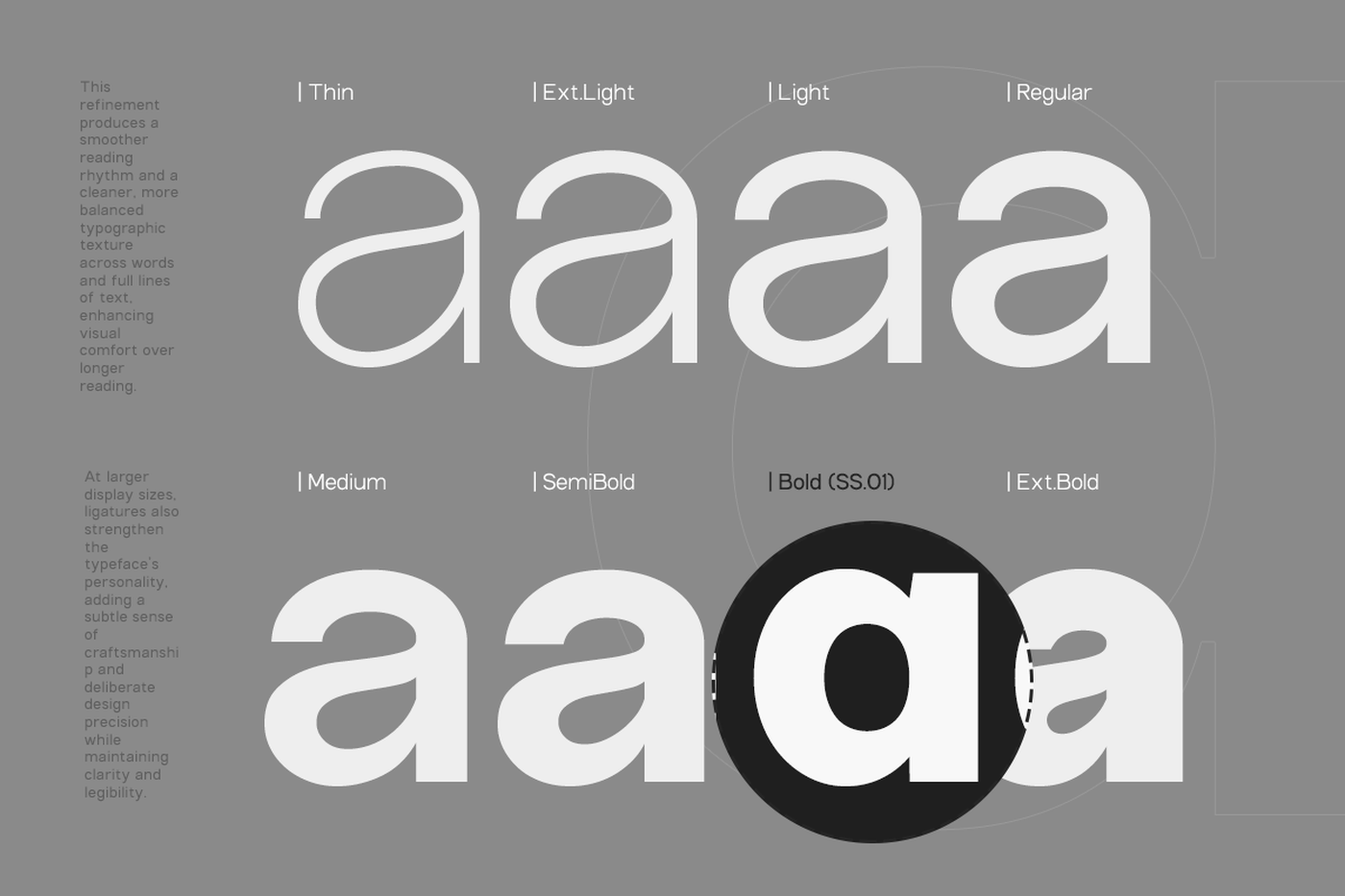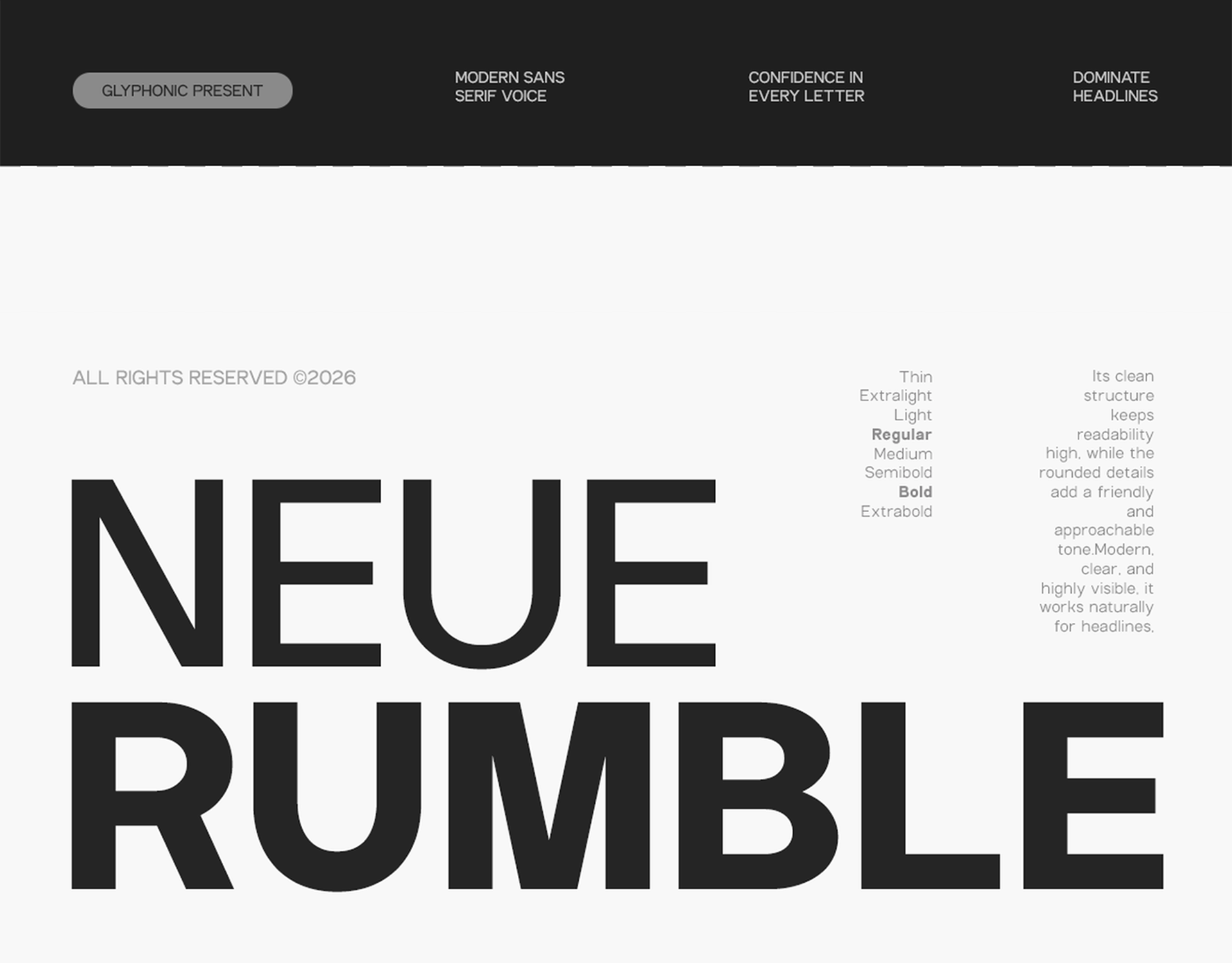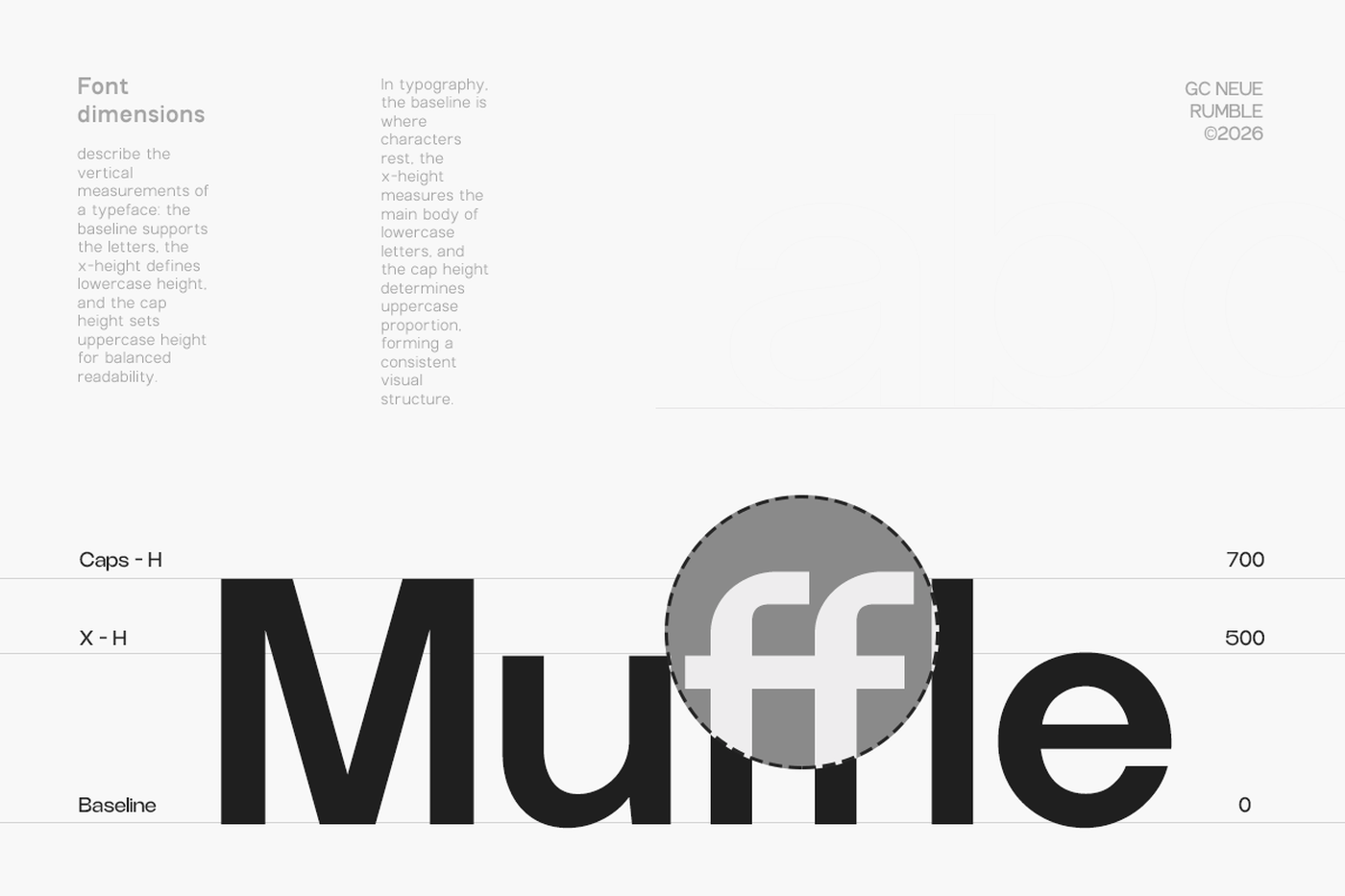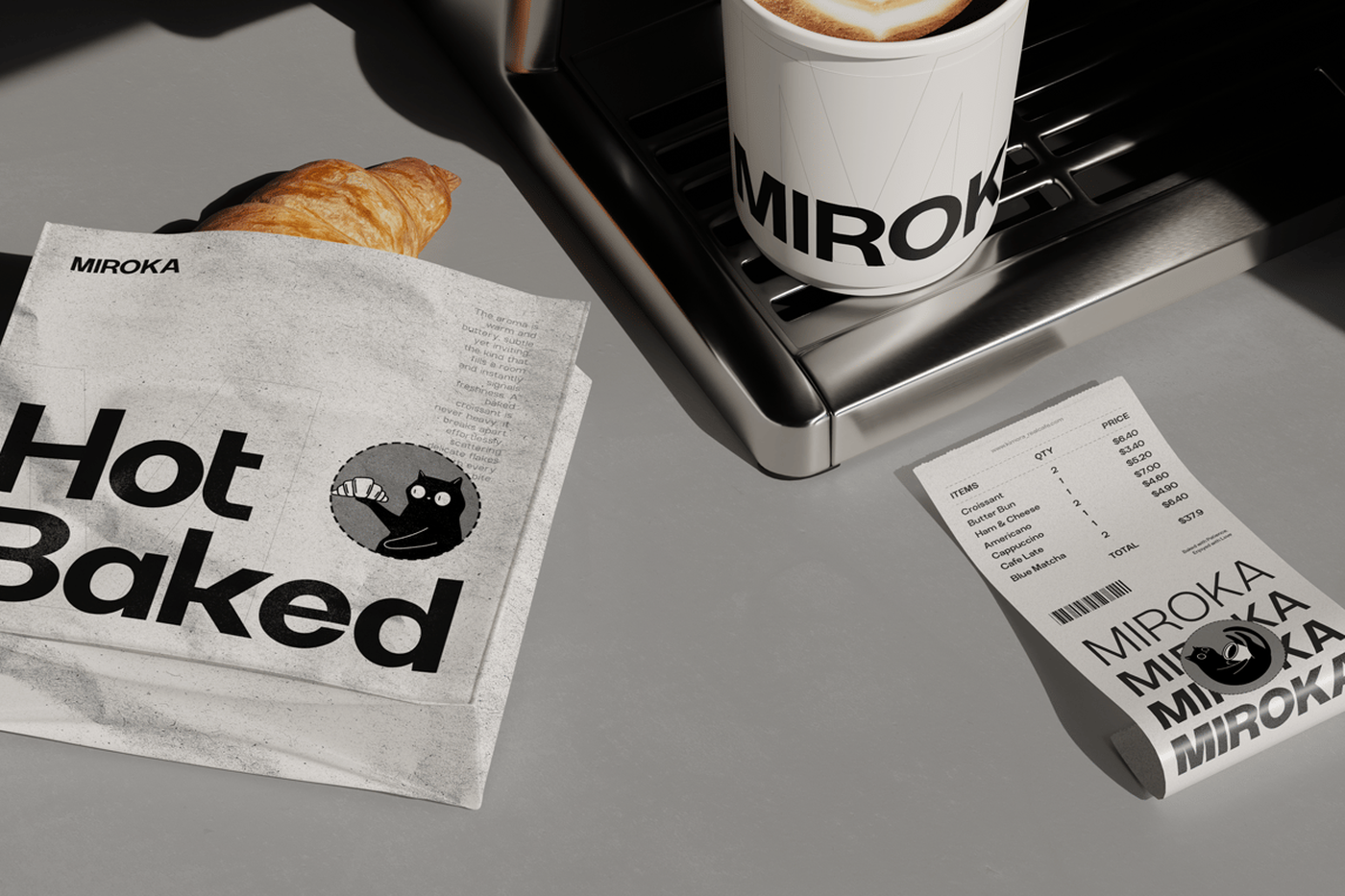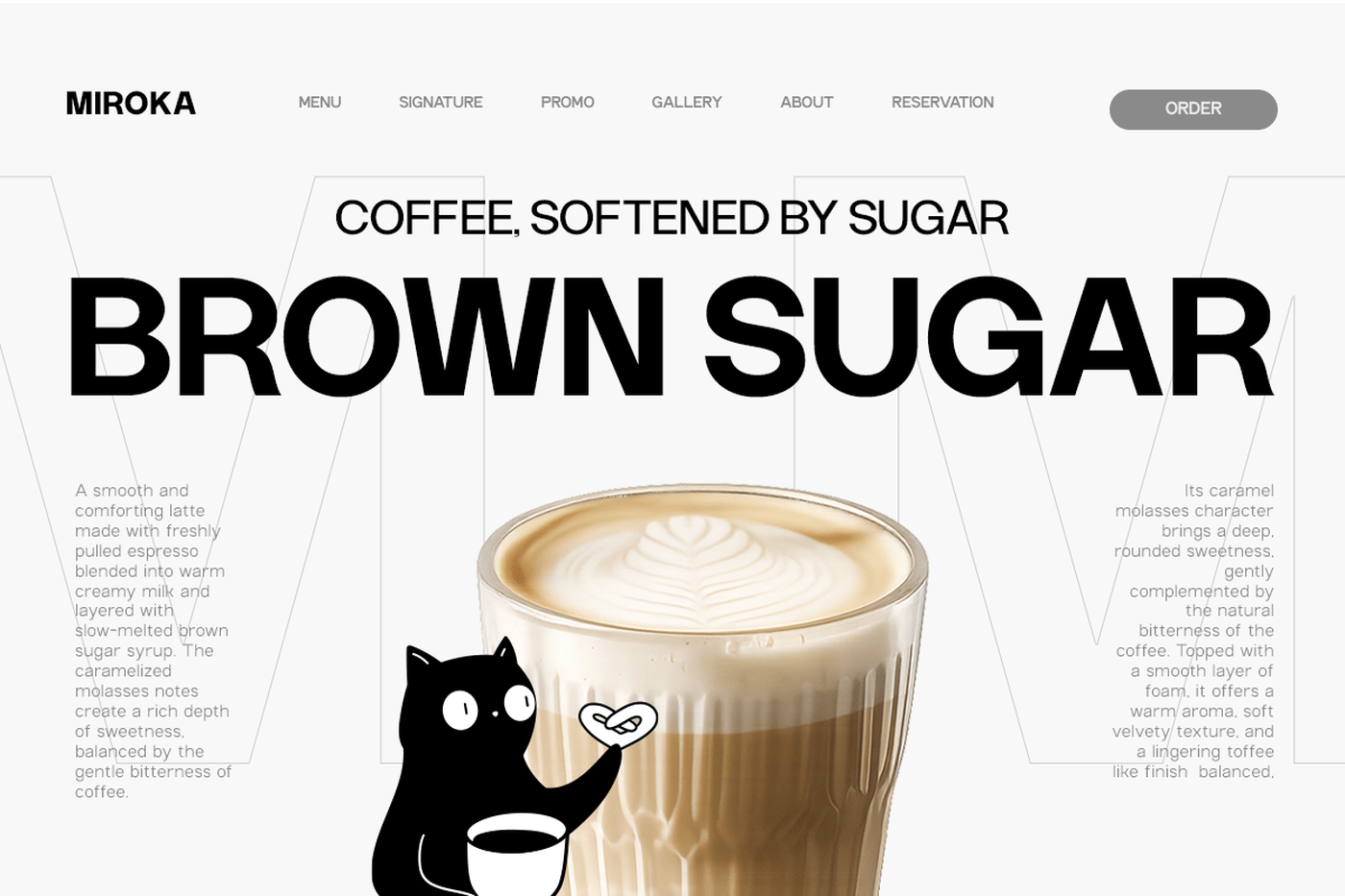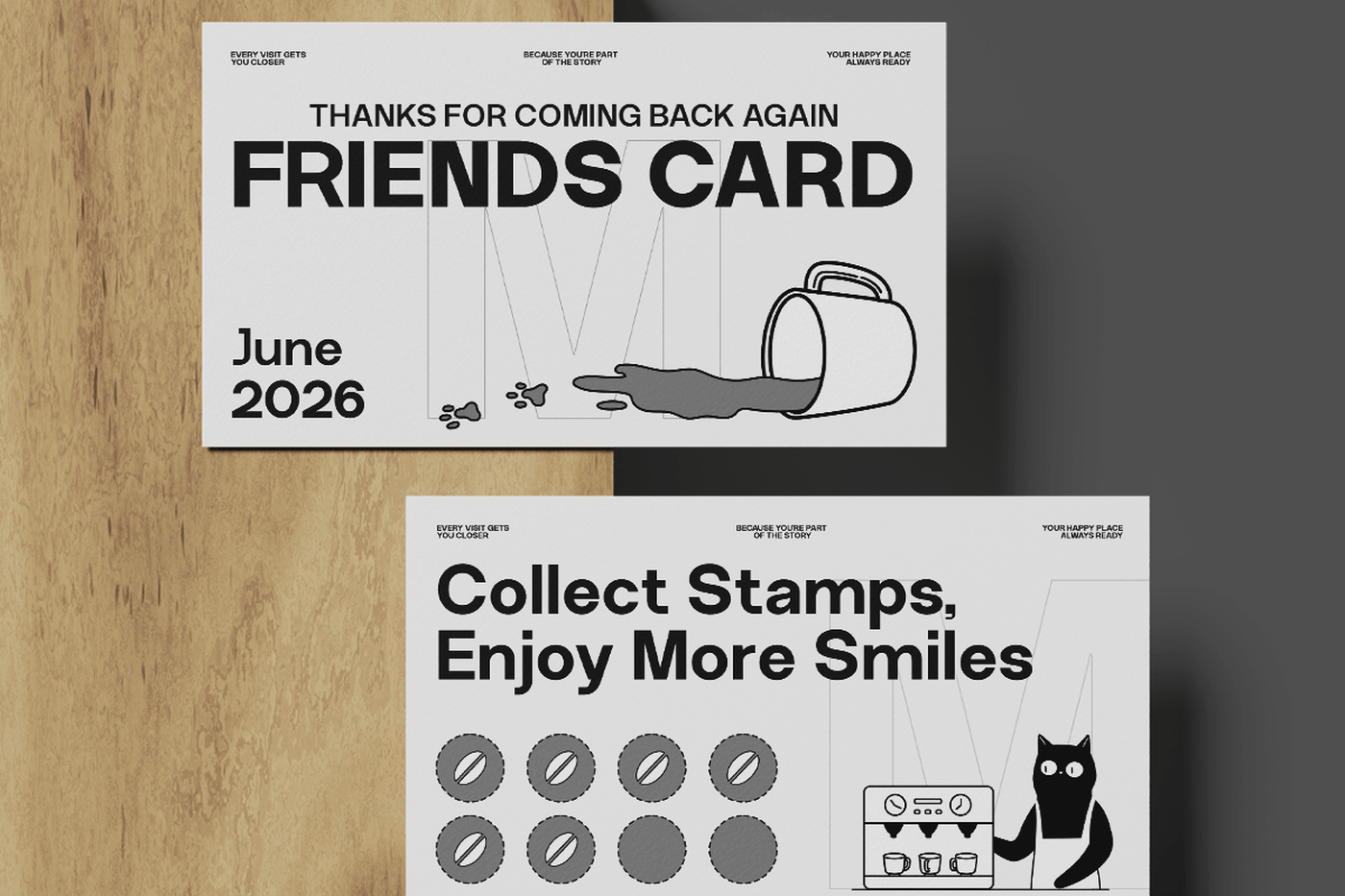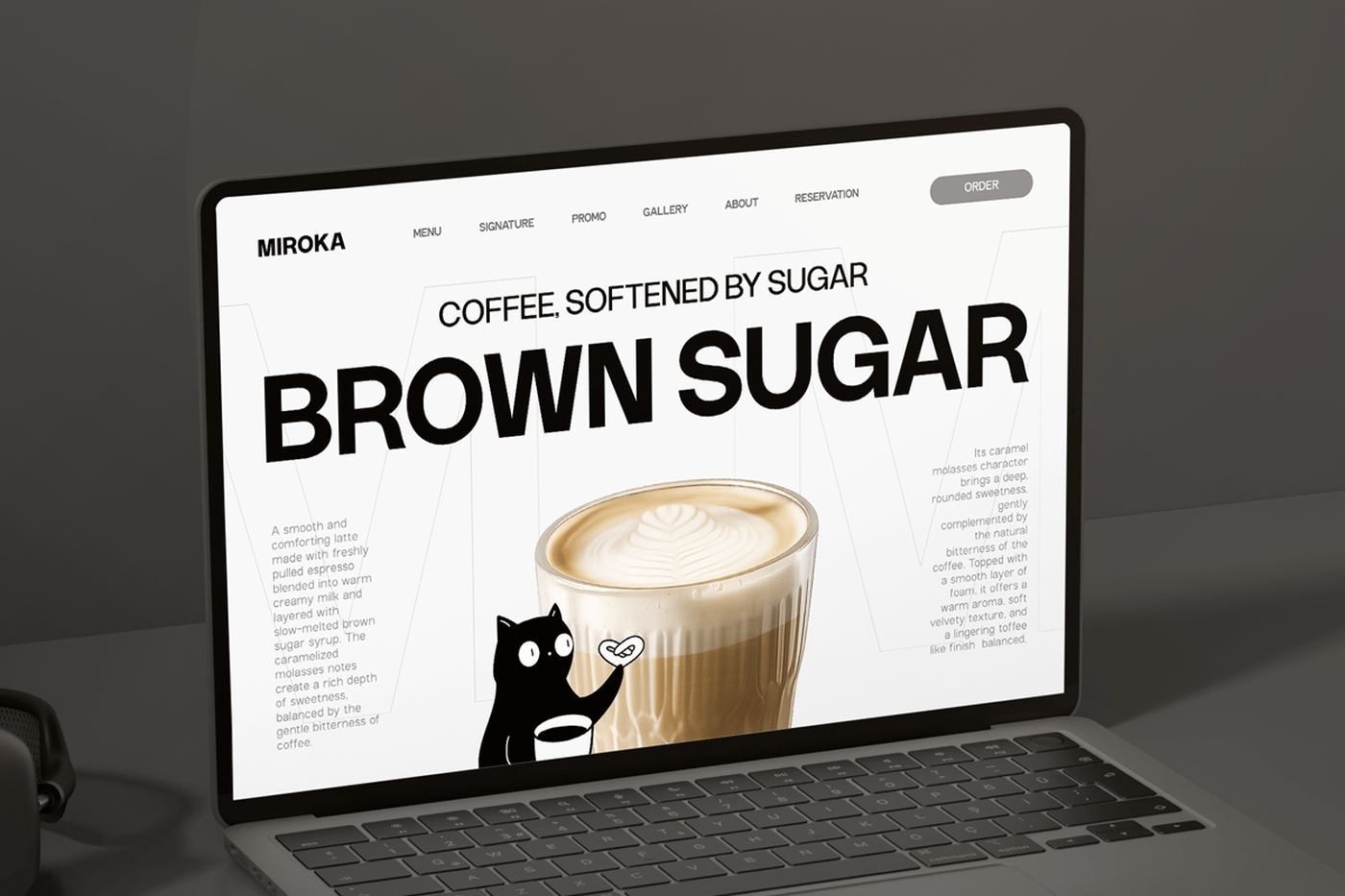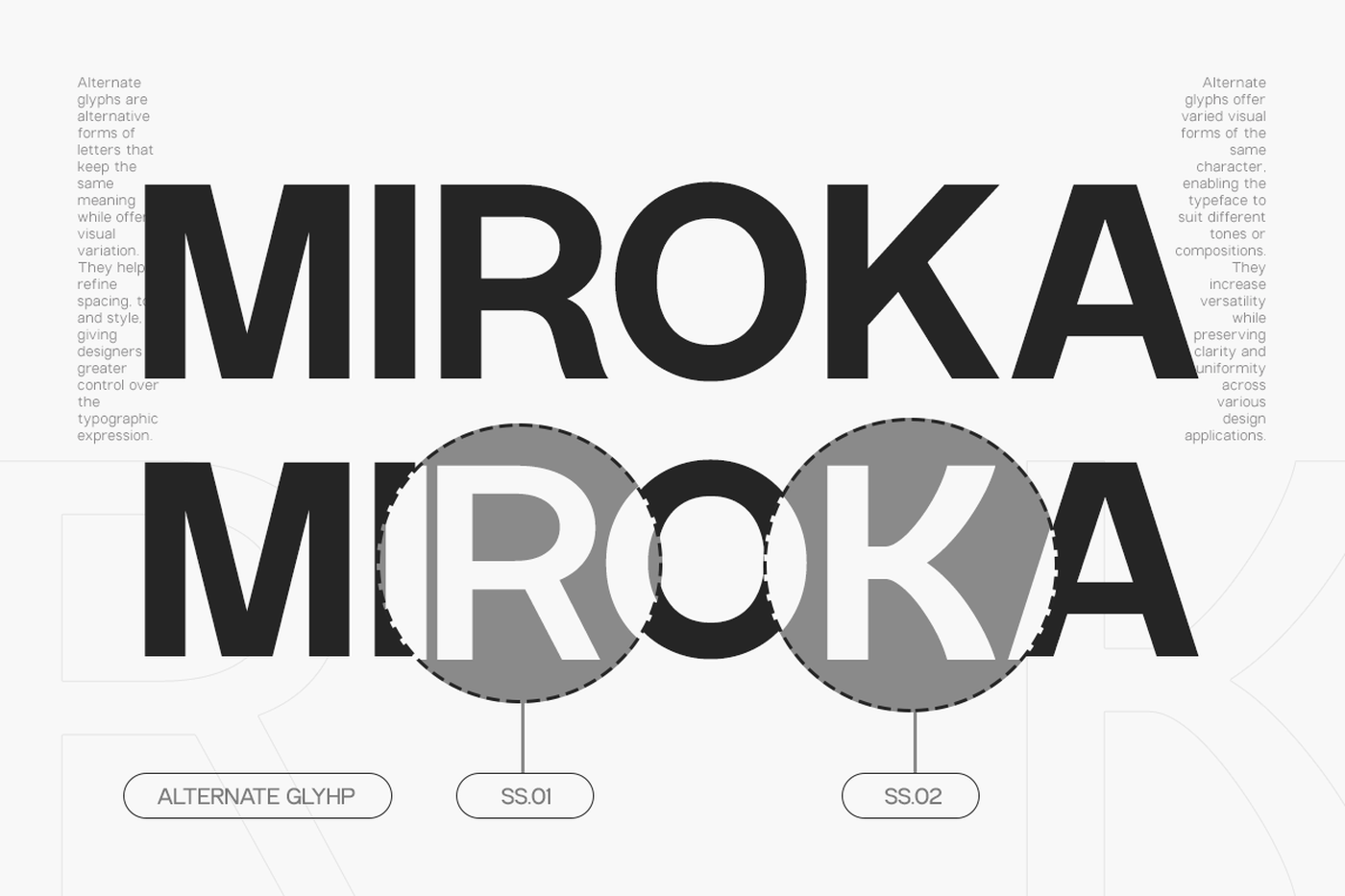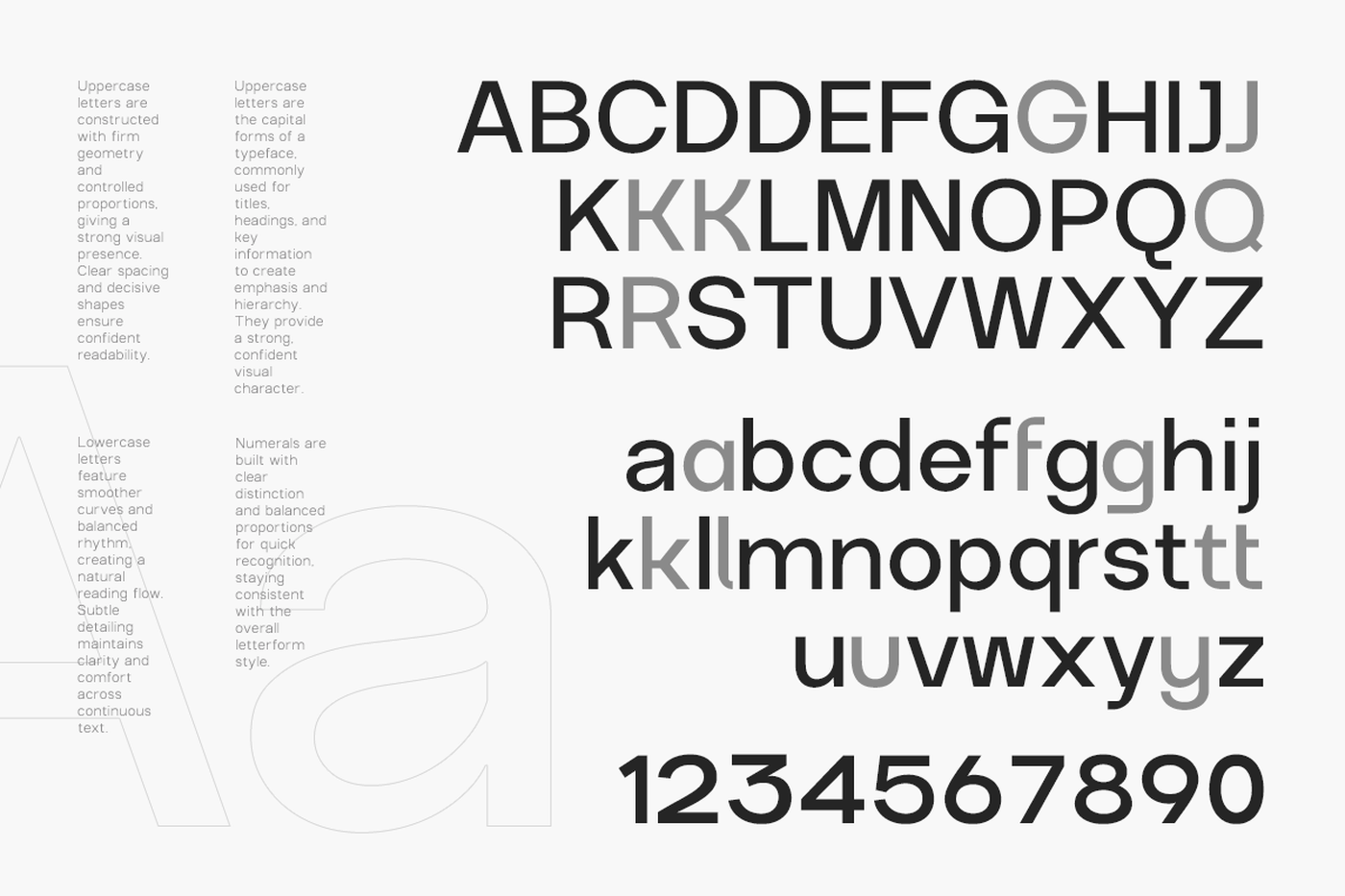
Neue Rumble - Modern Elegant Sans Font
Neue Rumble is a contemporary sans serif typeface that blends refined elegance with modern clarity. Designed with balanced proportions and sophisticated detailing, Neue Rumble delivers a clean and graceful typographic voice that feels both timeless and forward-looking. With its smooth curves, subtle contrasts, and polished structure, GC Neue Rumble is crafted to perform beautifully across both digital and print media. The letterforms carry a sense of elegance without losing modern simplicity, making it ideal for branding, editorial layouts, luxury design, fashion visuals, and high-end creative projects.
Designer: Glyphonic